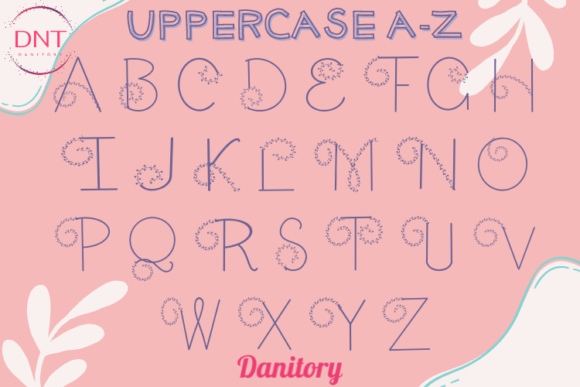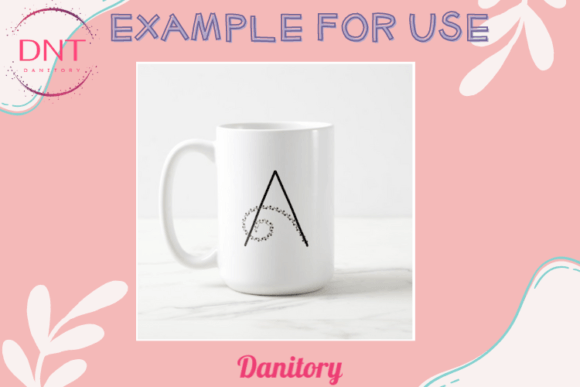
Introducing Blossom Font: The Sweet and Adorable Decorative Font for Crafty Designs
Are you a designer, crafter, or DIY enthusiast looking for a font that can add a touch of charm and whimsy to your projects? Look no further than Blossom Font! This sweet and adorable decorative font is perfect for adding a cute and playful touch to your crafty ideas, and we’re excited to share its features and benefits with you.
What is Blossom Font?
Blossom Font is a decorative font designed to bring a touch of sweetness and charm to your designs. Its unique and playful style makes it perfect for a variety of creative projects, from bullet journaling and scrapbooking to invitations and other designs that require a cute and personalized touch.
Key Features of Blossom Font
- Cute and Playful Style: Blossom Font features a unique and adorable design that’s sure to capture the hearts of designers and crafters alike. Its playful style makes it perfect for adding a touch of whimsy to your projects.
- Highly Versatile: Blossom Font is a highly versatile font that can be used for a wide range of creative projects, from digital designs to print materials.
- Perfect for Crafty Projects: Blossom Font is specifically designed for crafty projects, such as bullet journaling, scrapbooking, and invitations.
Uses for Blossom Font
Blossom Font is a versatile font that can be used for a variety of creative projects, including:
- Bullet Journaling: Add a touch of charm to your bullet journals with Blossom Font. Use it to create headings, titles, and other decorative elements.
- Scrapbooking: Blossom Font is perfect for scrapbooking projects. Use it to add captions, titles, and other decorative elements to your photos and designs.
- Invitations: Create adorable invitations for parties, weddings, and other special events with Blossom Font.
- Digital Designs: Use Blossom Font to create digital designs, such as social media graphics, blog posts, and other online content.
Why Choose Blossom Font?
So why choose Blossom Font for your crafty projects? Here are just a few reasons:
- Unique and Playful Style: Blossom Font features a unique and playful style that’s sure to set your designs apart.
- Easily Customizable: Blossom Font is easily customizable, making it easy to adjust the font size, color, and style to suit your needs.
- High-Quality Design: Blossom Font is designed with high-quality and clarity in mind, making it perfect for both digital and print designs.
Tips for Using Blossom Font
Here are a few tips for using Blossom Font in your crafty projects:
- Experiment with Font Sizes: Experiment with different font sizes to find the perfect size for your project.
- Pair with Other Fonts: Pair Blossom Font with other fonts to create a unique and interesting design.
- Use in Combination with Images: Use Blossom Font in combination with images to create a visually appealing design.